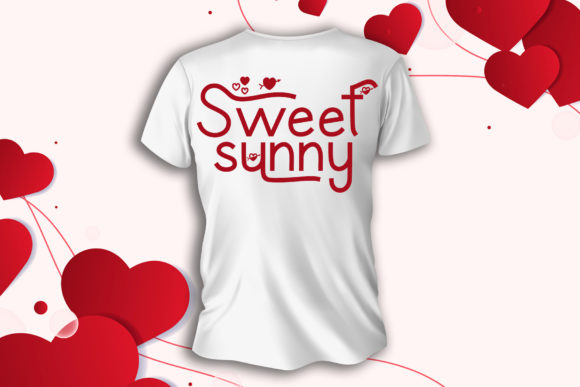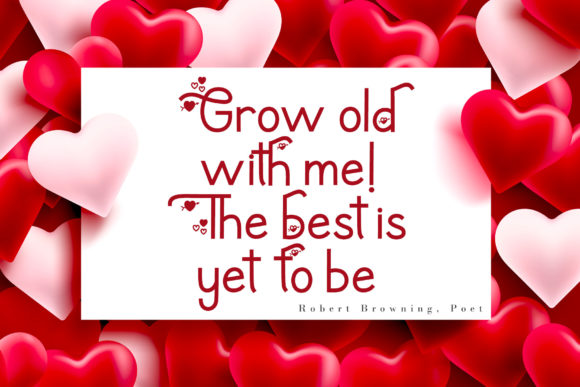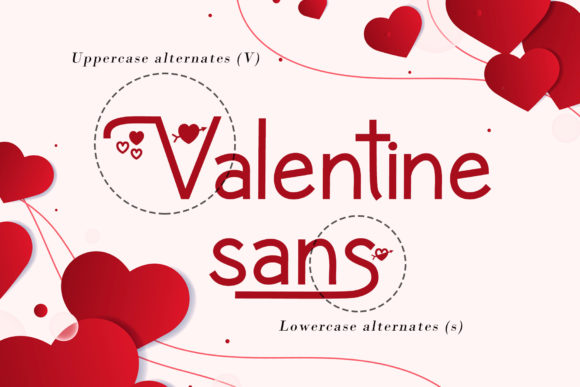
Introduction to Romance Sans Font
As a designer, have you ever found yourself stuck on a creative project, searching for that perfect font to convey the emotions and feelings you want to express? I’ve been there, and it’s frustrating when you can’t find the right tool to bring your vision to life. But what if I told you there’s a font that can help you create stunning, romantic designs that will leave a lasting impression?
Enter the Romance Sans Font, a modern display font that’s sure to captivate your audience. With its lovely ornaments and high-quality design, this font is perfect for creating romantic themed designs that exude elegance and sophistication. Whether you’re working on a wedding invitation, a Valentine’s Day card, or any other project that requires a touch of romance, the Romance Sans Font is an invaluable design resource that’s sure to impress.
Key Features of Romance Sans Font
- High-quality, unique, and stylish design ideal for creative projects, with a transparent background for seamless integration.
- Features a clear and legible font style, perfect for use in a variety of contexts, from headings to body text.
- Designed to be a versatile and modern sans-serif font, suitable for a wide range of design applications.
Honest Review: Romance Sans Font
As a designer, I’m always on the lookout for unique and high-quality design resources to elevate my creative projects. Recently, I stumbled upon the Romance Sans Font, and I must say, it’s a delightful addition to my collection.
- ✨ The font’s soft, rounded edges and delicate details make it perfect for designs that need a touch of whimsy.
- ✨ The font comes with a transparent background, allowing for seamless layering and compositing.
- ⚠️ The font’s characters are not as extensive as some other fonts I’ve used, which may limit its usability in certain situations.
- ⚠️ The font’s design, while lovely, may not be as versatile as some other fonts, making it better suited for specific types of projects.
Overall, I’m thoroughly impressed with the Romance Sans Font. Its unique design and high-quality construction make it a valuable addition to any designer’s toolkit. Whether you’re working on a romantic-themed project or simply need a fresh perspective, the Romance Sans Font is definitely worth checking out.
Romance Sans Font
Getting the Most Out of Romance Sans Font
Use the Romance Sans Font in a variety of creative projects, such as logos, branding, and typography-based designs. Experiment with different font sizes, colors, and backgrounds to get the most out of this high-quality design resource.
The Romance Sans Font is ideal for romantic-themed designs, wedding invitations, and Valentine’s Day projects. Its elegant and sophisticated look makes it perfect for luxury branding and high-end designs.
Does the Romance Sans Font have a transparent background?
Yes, the Romance Sans Font has a transparent background, making it ideal for use in designs with complex backgrounds or layered compositions. This feature allows designers to easily combine the font with other design elements and achieve a seamless look.